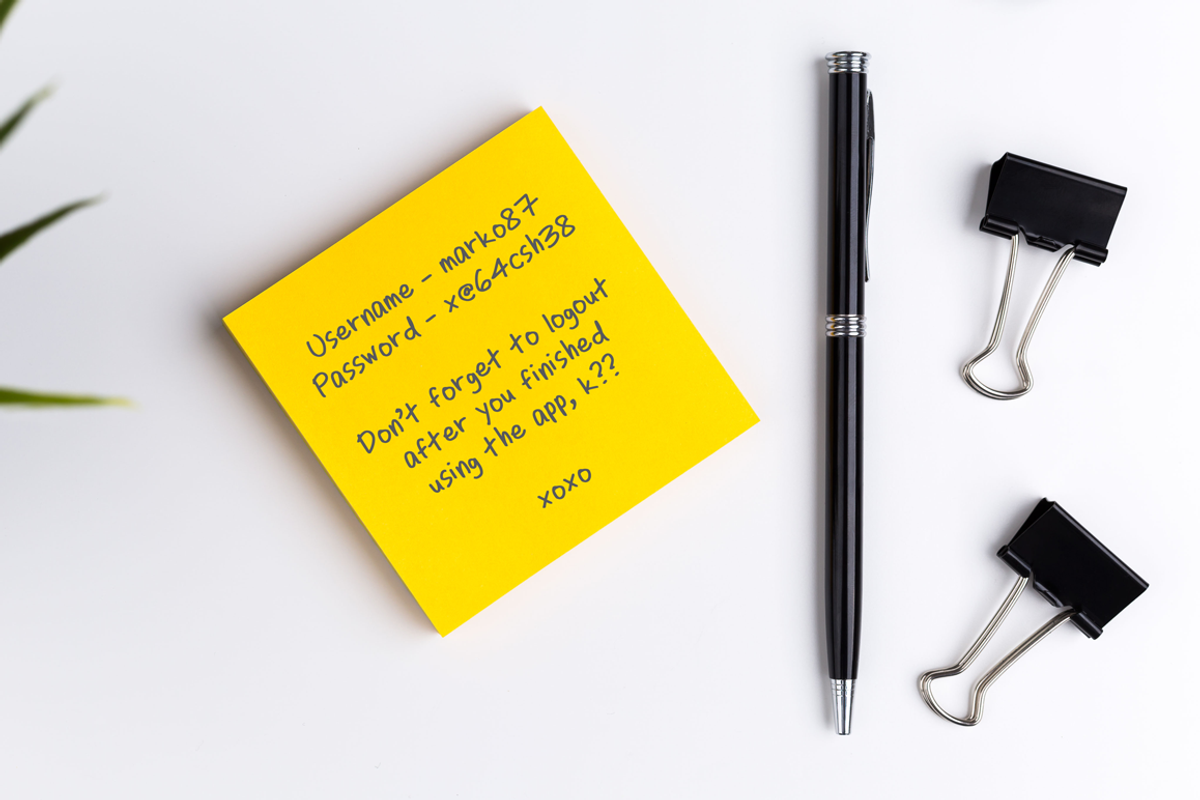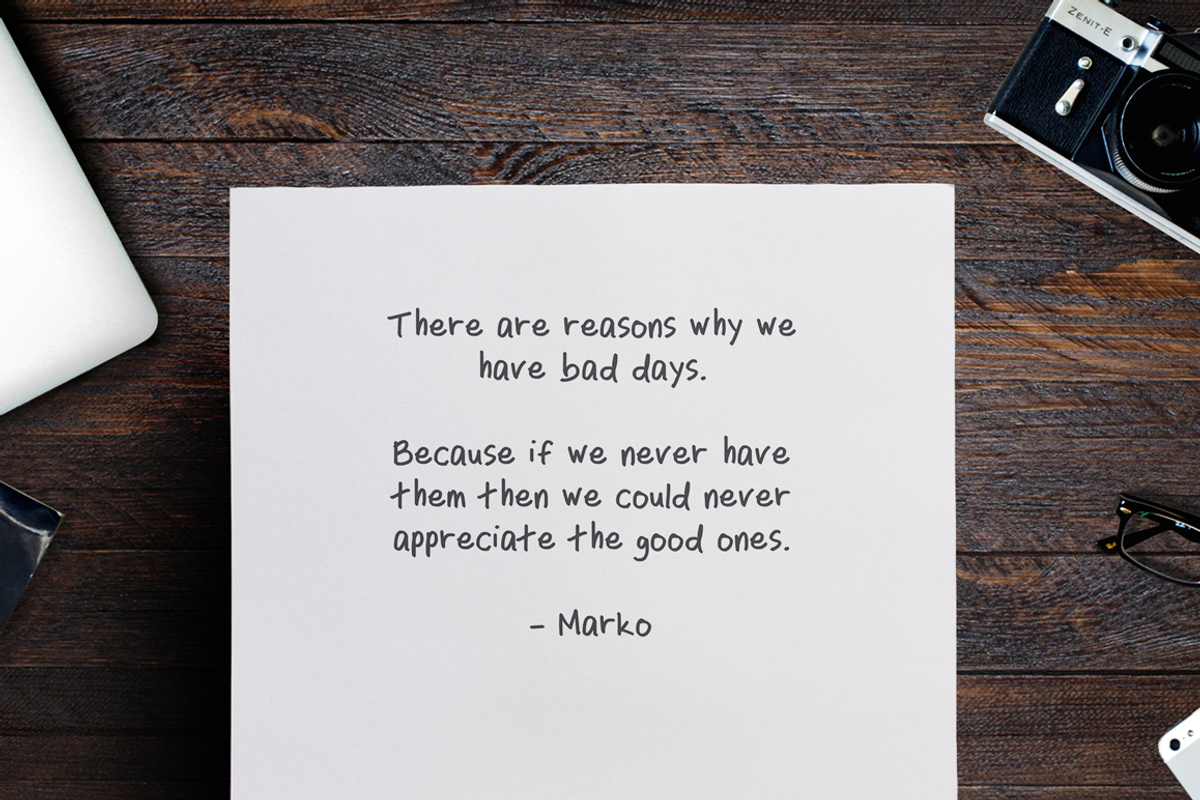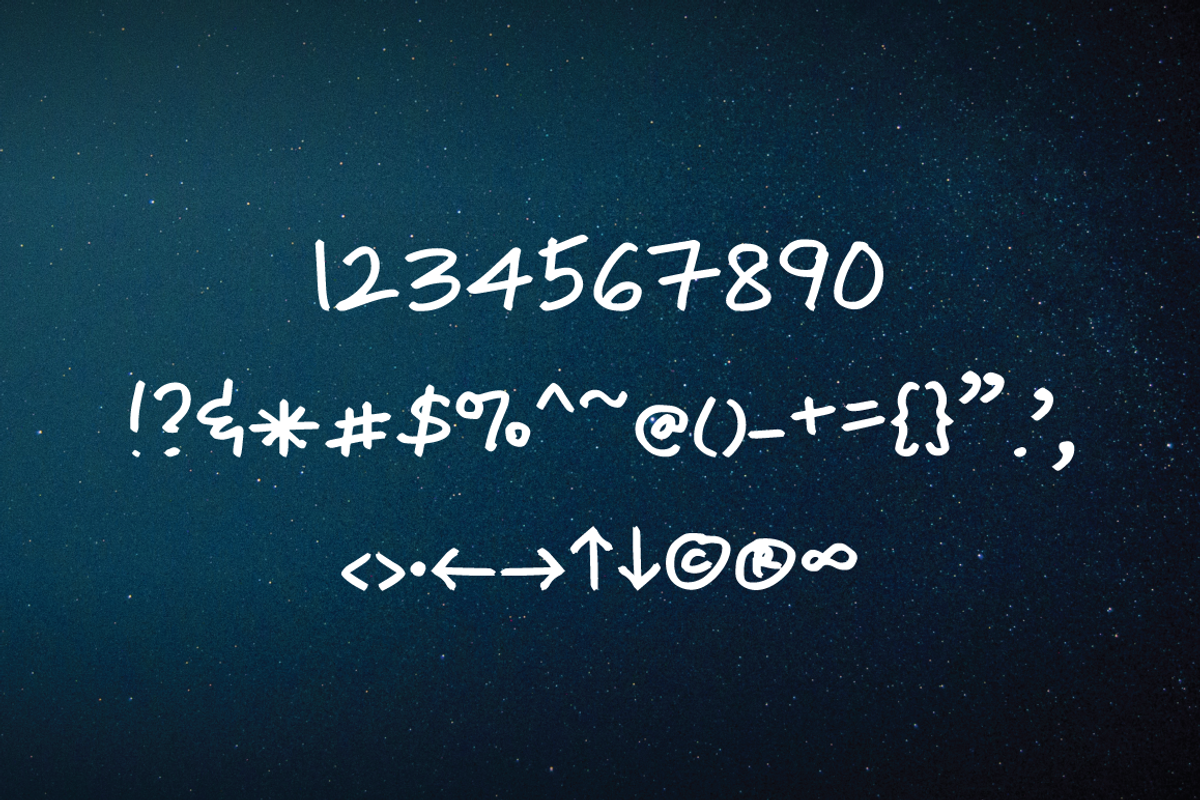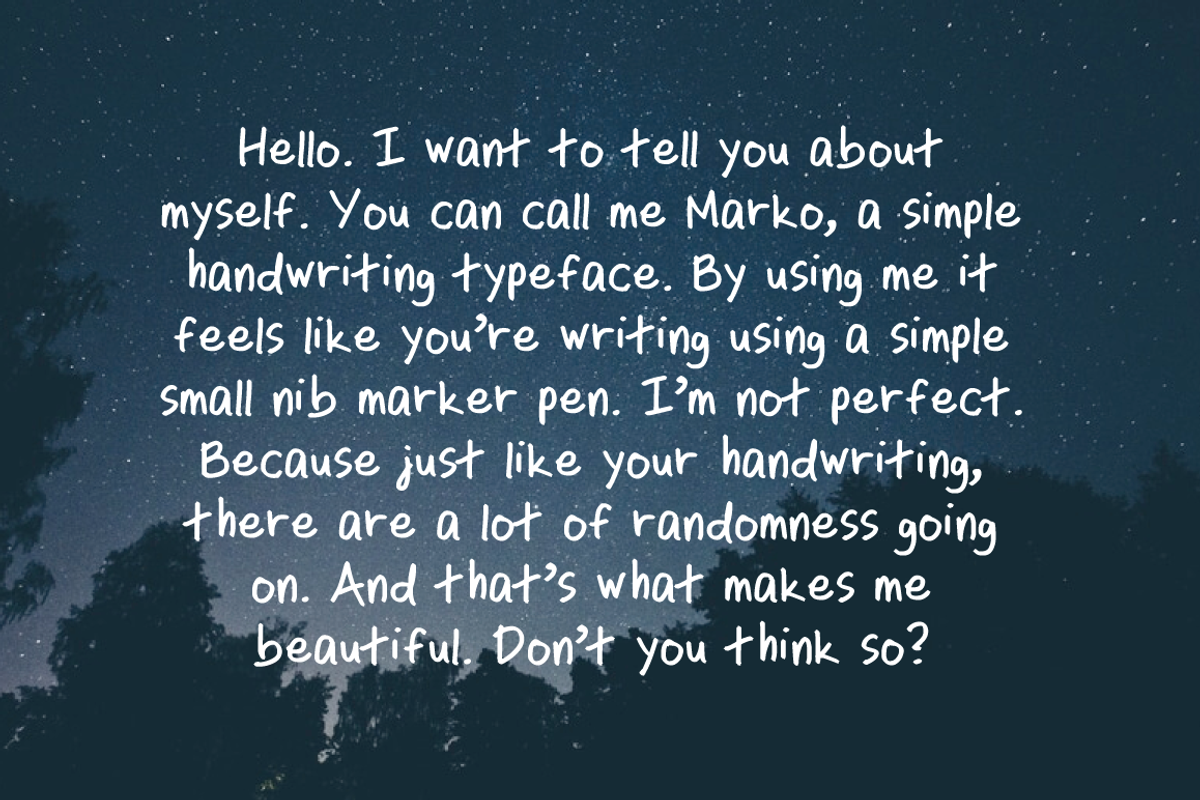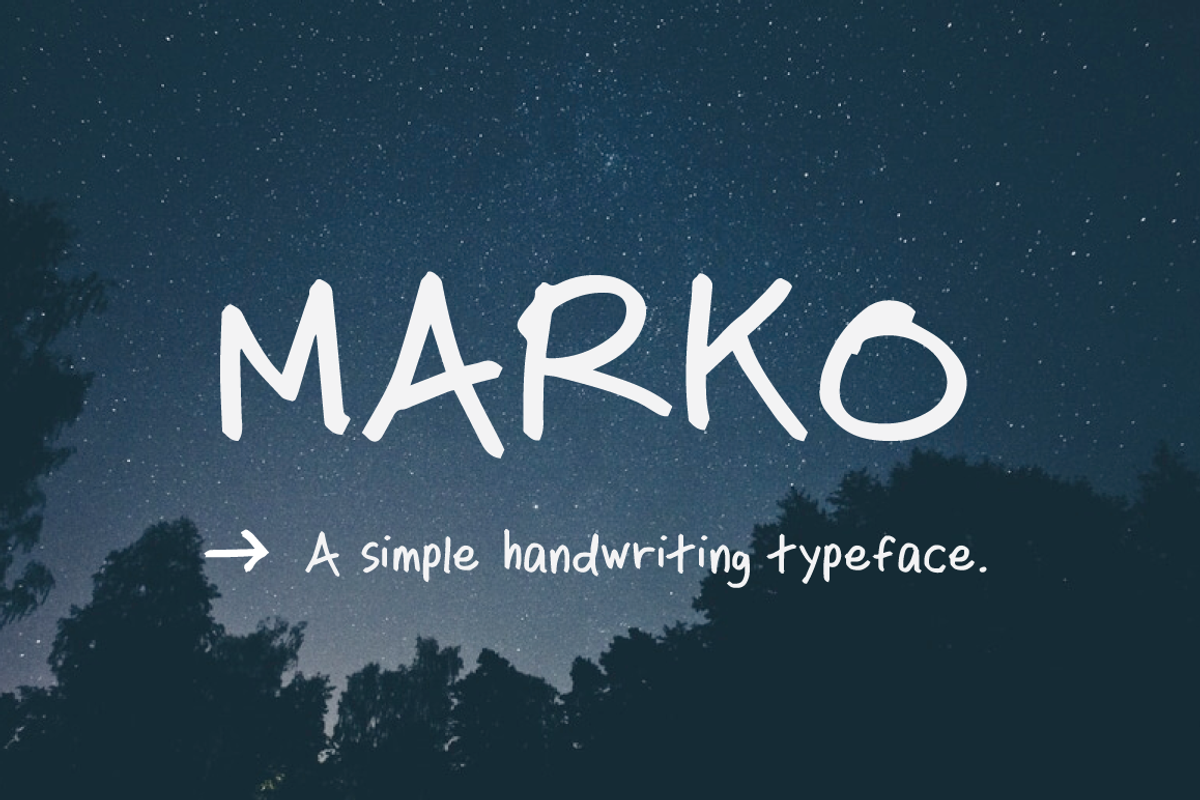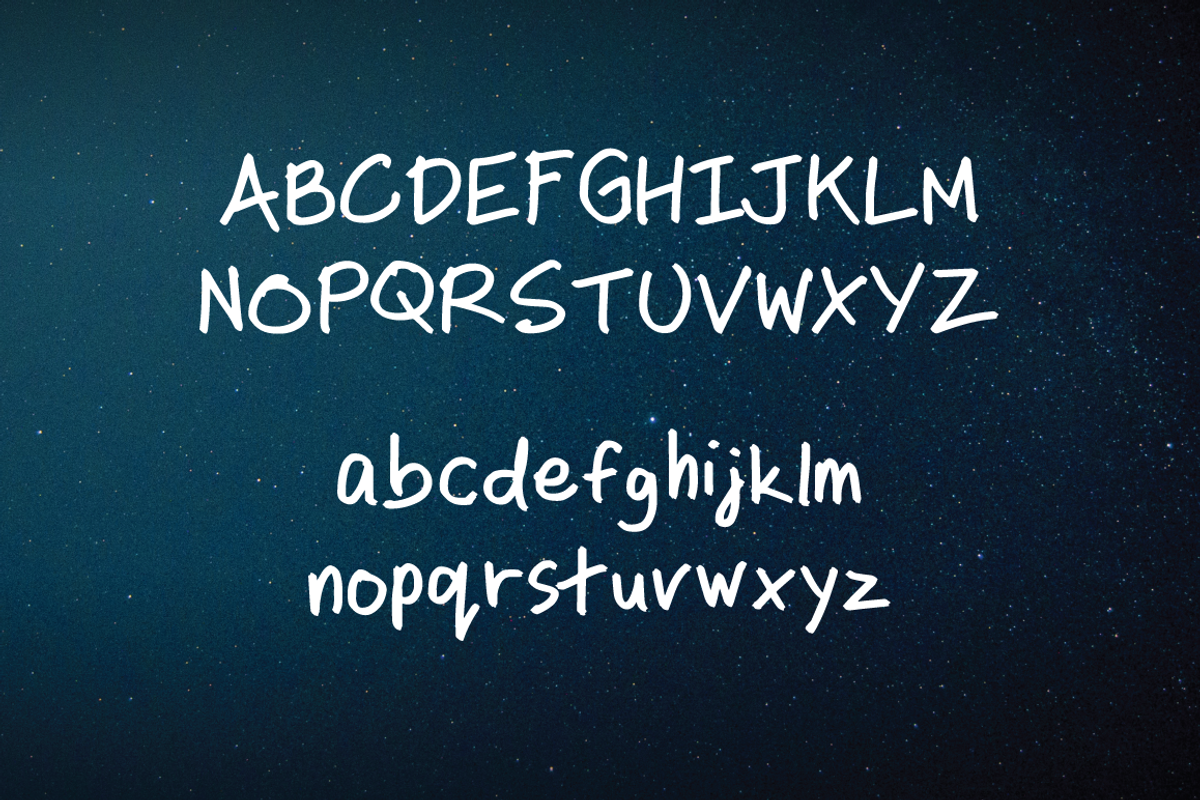
Marko Handwriting Typeface
Marko Handwriting Typeface by Projectile is a font selected for branding, posters, packaging, typography.
- Manually handrwitten
- Uppercase and lowercase
- Numbers and punctuations
- Suitable for:
- Writing notes
- Greeting cards
- Annotations
- Speech bubble
Marko Handwriting Typeface by Projectile fits naturally into Branding, posters, packaging, typography.